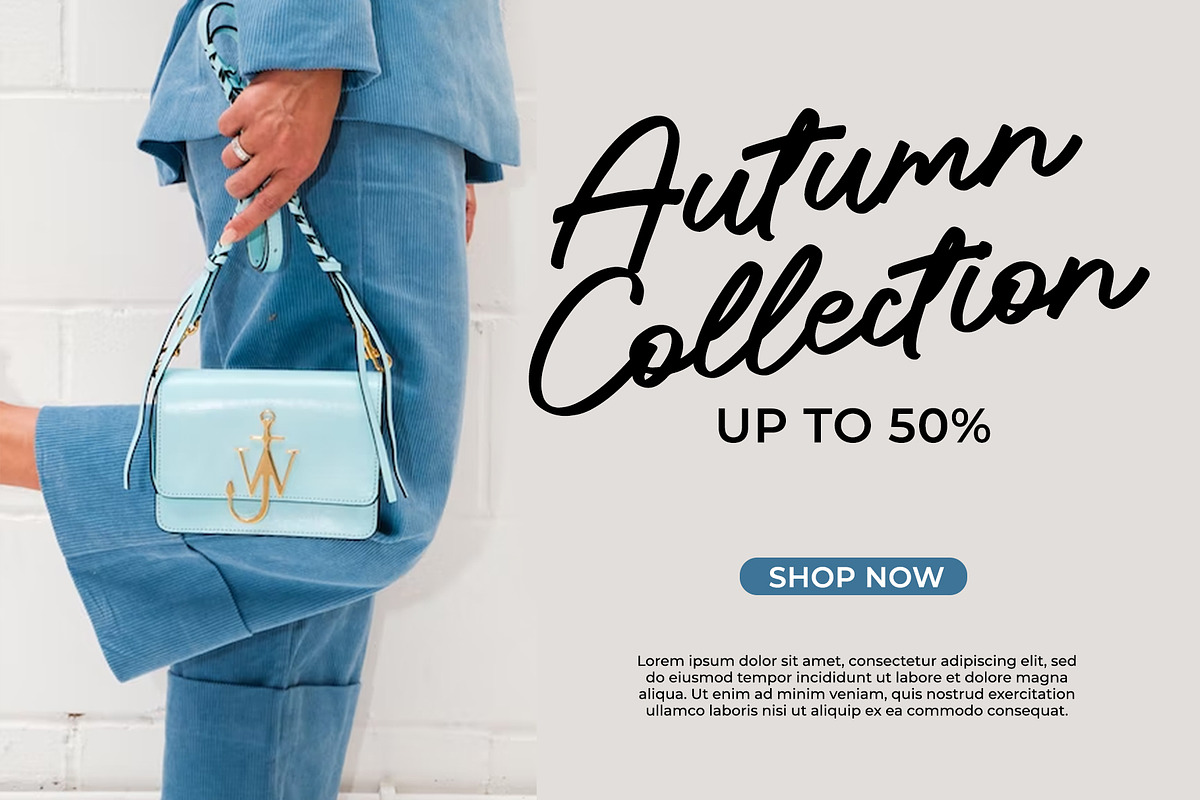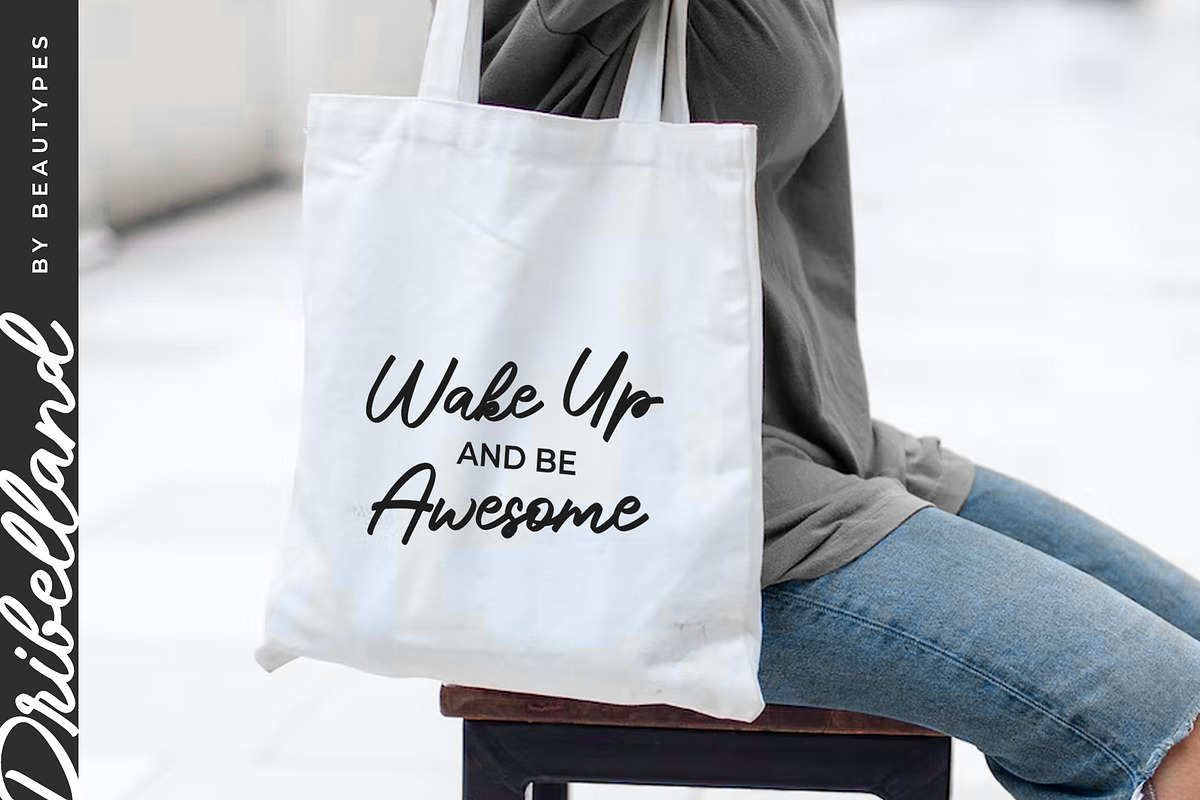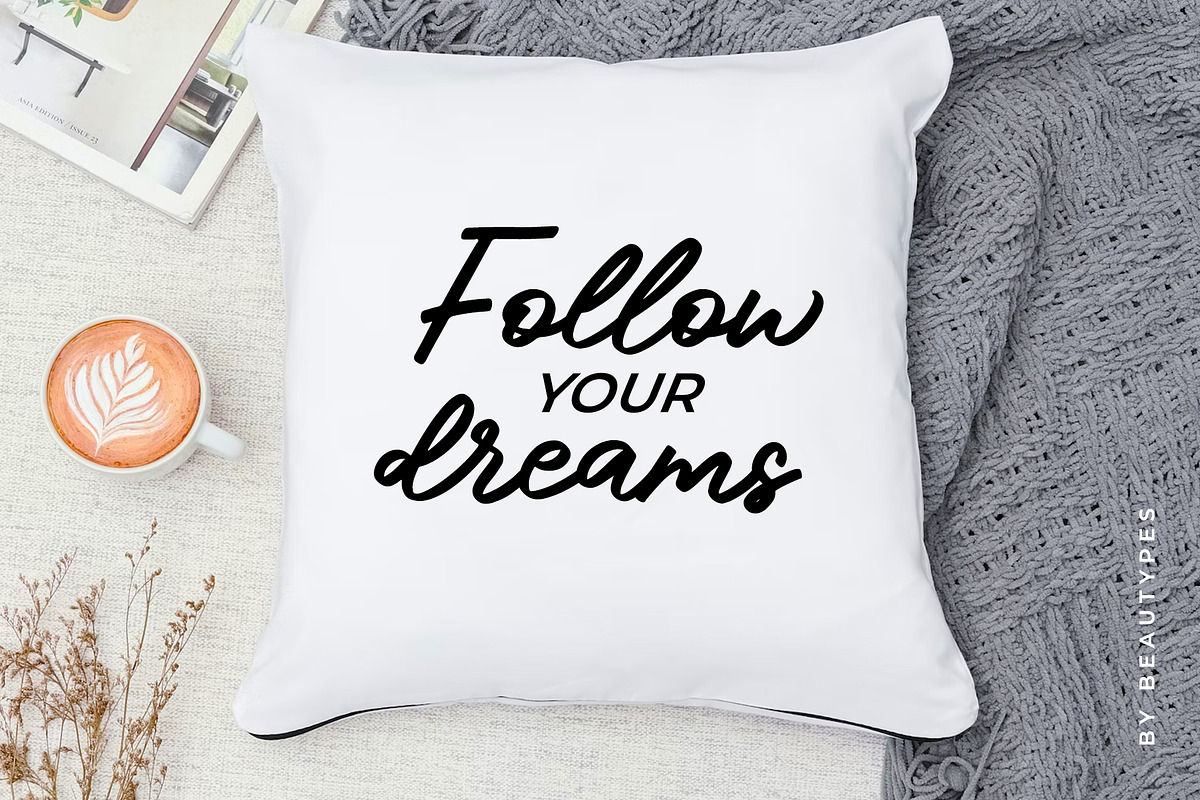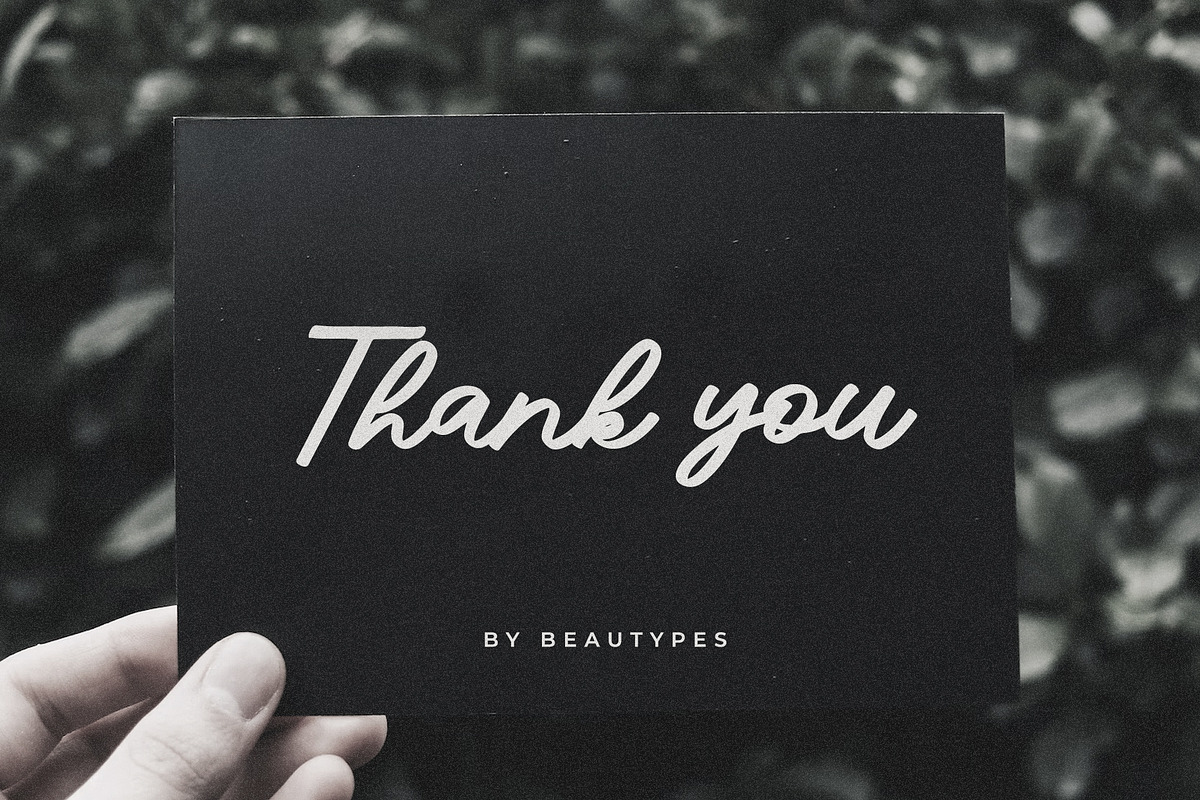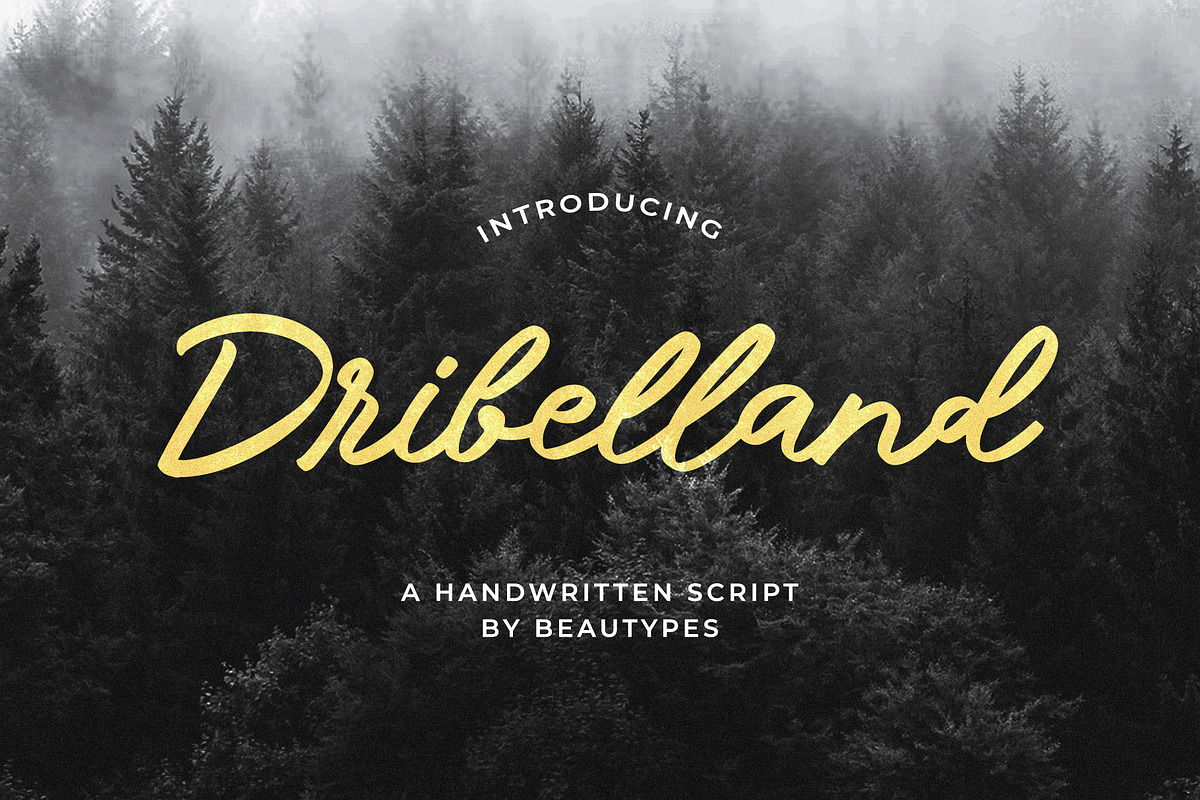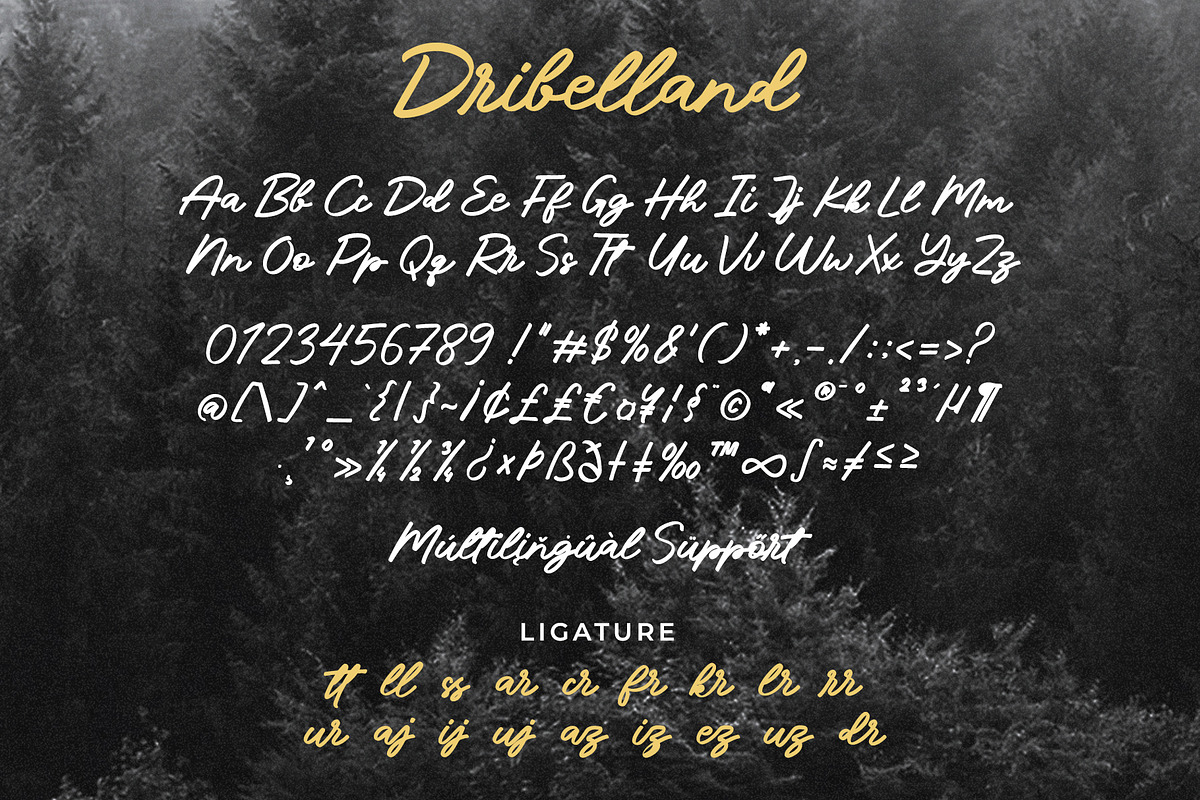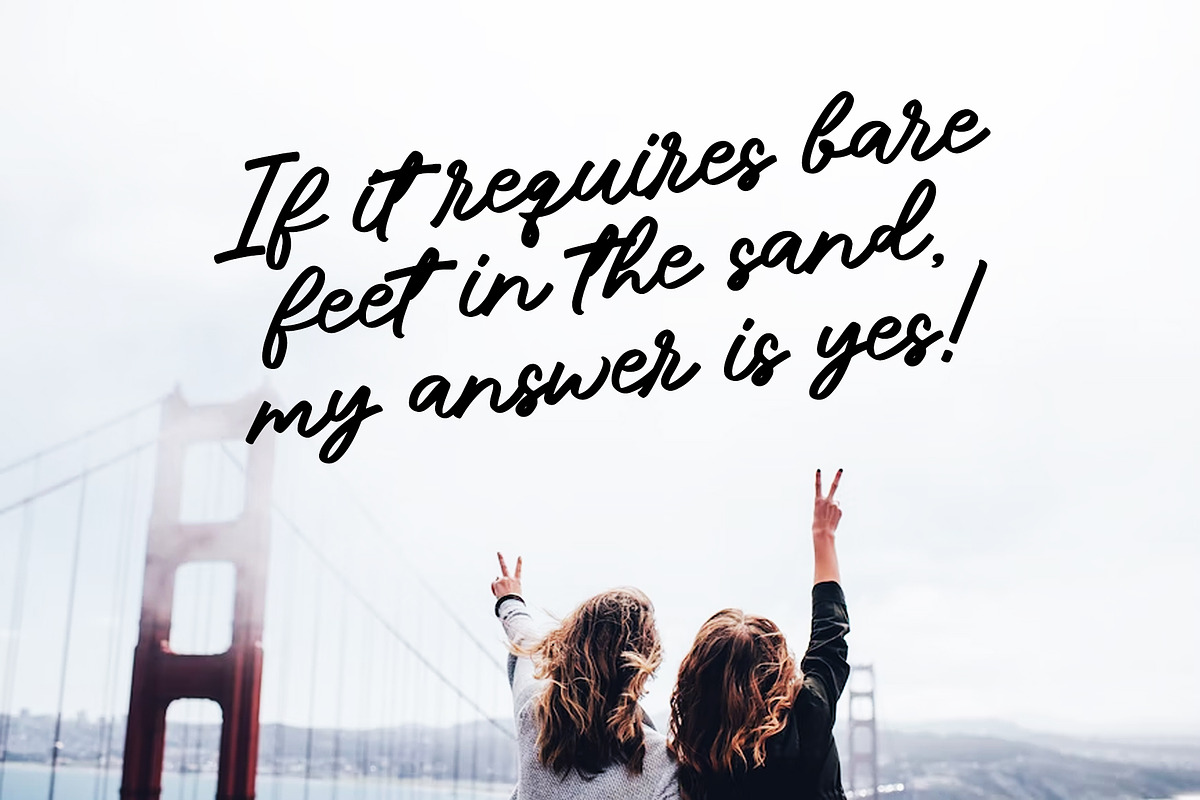
Dribelland - a handwritten font
Dribelland is a fresh and unique font. It has an amazing handwritten look and is perfect for logos, stationery, posters, apparel, branding, advertisements, product packaging, product designs, labels, wedding invitations, and much more!